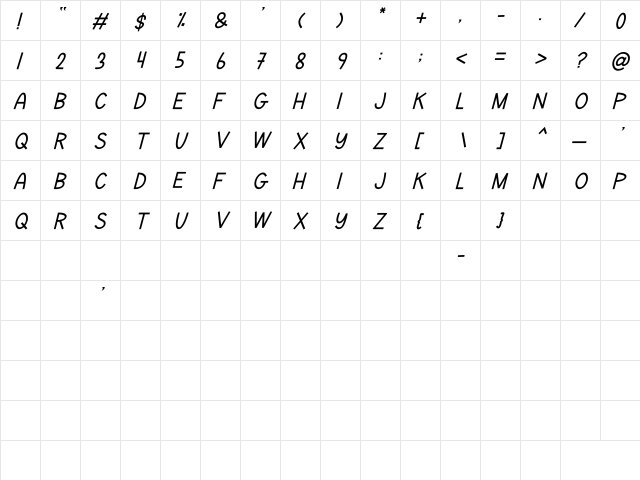
Purple Bougenville Duo Italic Regular
Design Context for Purple Bougenville Duo Italic Typeface
Purple Bougenville Duo Italic is a composed and adaptable typeface that performs quietly and consistently across a wide range of design contexts. The slanted form adds forward momentum and visual energy.
Pro Tip: Use Purple Bougenville Duo Italic for emphasis, pull quotes, and subheadings where its slanted energy can add rhythm to the layout.